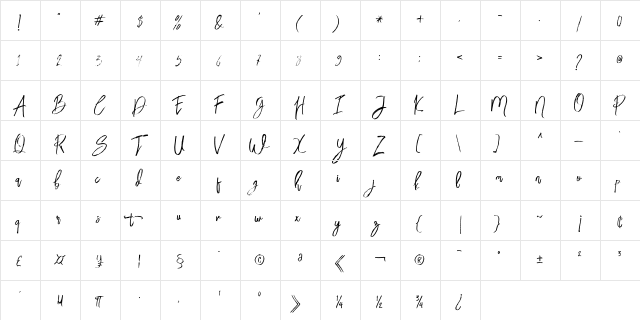
Bloomy Script Free Regular
Design Context for Bloomy Script Free Typeface
Bloomy Script Free brings a calligraphic fluidity to the page — its connecting strokes and expressive curves give it an unmistakably human quality.
Font Pairing: Combine Bloomy Script Free with a simple geometric sans for maximum contrast — the tension between flowing curves and clean structure is a classic typographic pairing.
Pro Tip: Use Bloomy Script Free for short runs of text — names, titles, or taglines. Extended body copy in script faces tires the eye quickly.